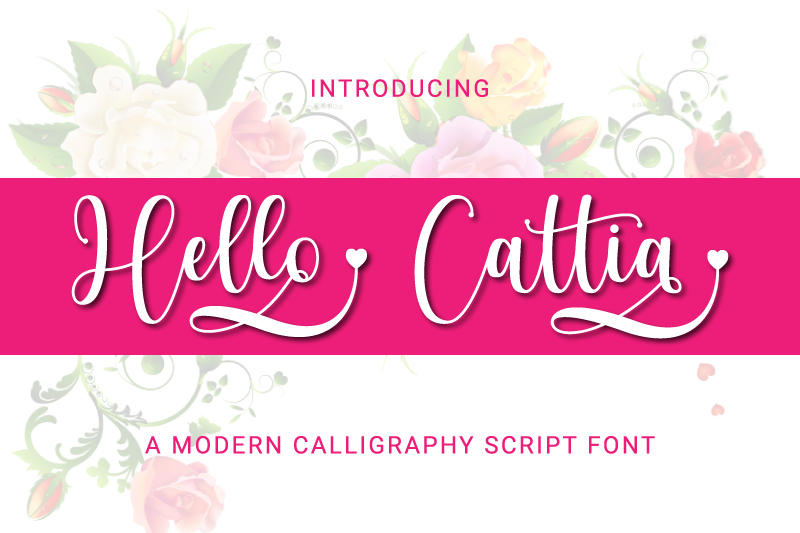
Preview and download Hello Cattia Font. Created by Gais Zaelani in Script Calligraphy styles with Free for personal use license.
Hello Cattia is a cute and casual handwritten font with a very friendly feel. Whether you�re looking for fonts to make beautiful wedding invitations, beautiful artwork, interesting social media posts, and funny greeting cards. Hello Cattia also has cute alternative letters that can make your project look modern, luxurious and classy. This font will turn any creative idea into a true work of art! NOTE: This demo font is for PERSONAL USE ONLY! But any donation are very appreciated. Paypal account donation: www.paypal.me/jprintstudio Link to purchase full version and commercial license : www.creativefabrica.com/product/hello-cattia/ref/237608/ And follow my Dribble for Update : dribbble.com/GaisZ Thank You!! |